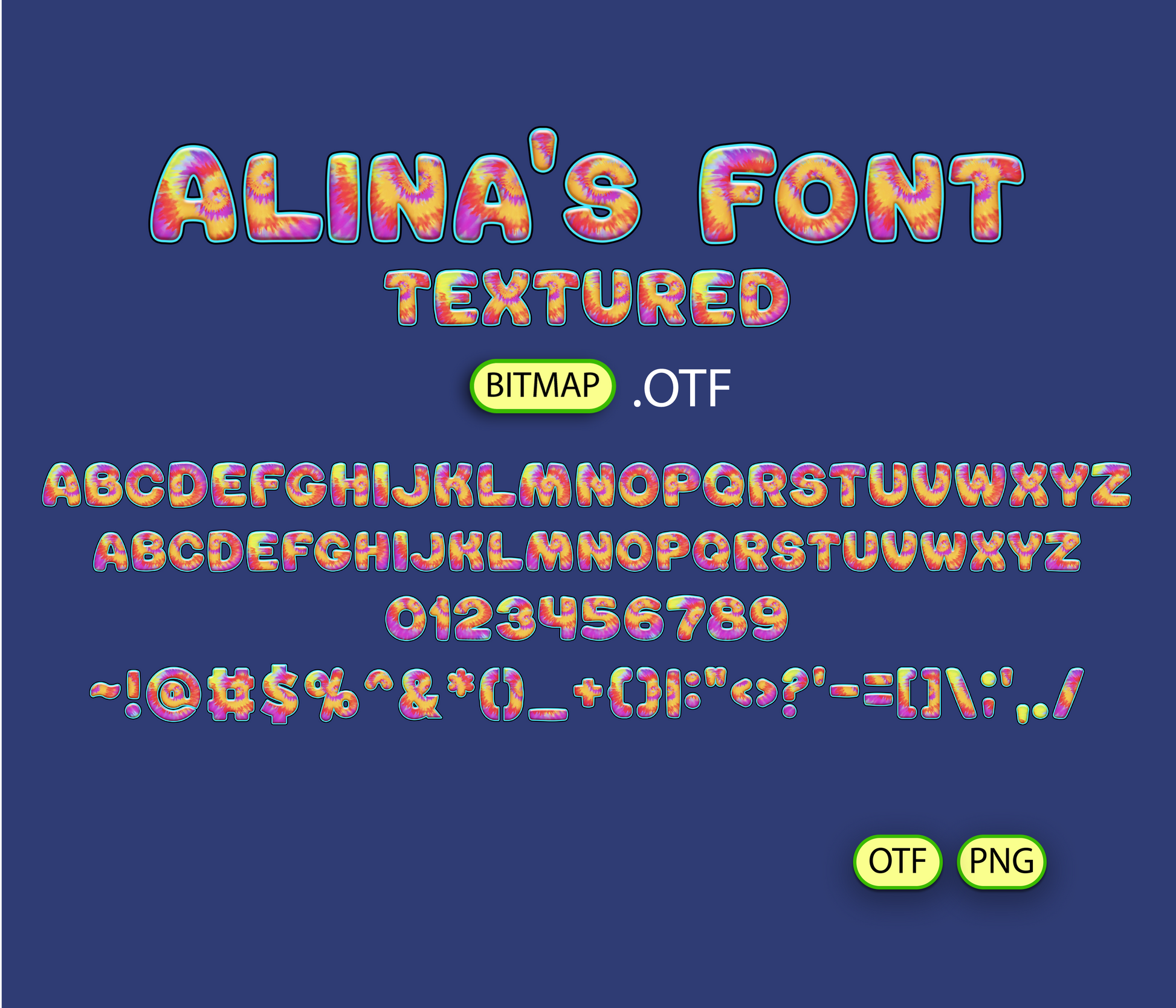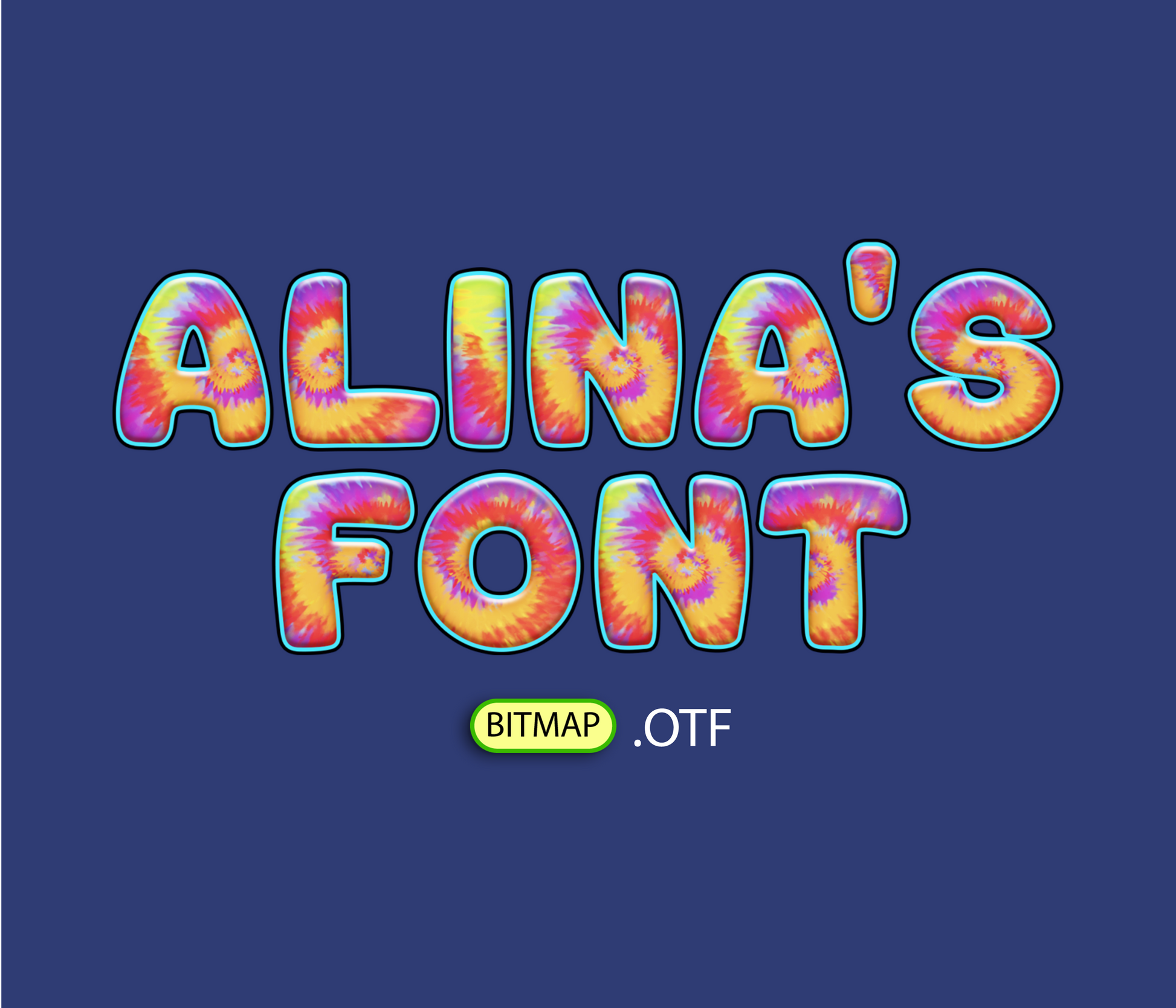
FREE Tie Dye Rainbow Pattern Font
Tie Dye Rainbow Typeface Swirled
Step into the vibrant world of psychedelic expression with our Tie Dye Rainbow Typeface, capturing the essence of free-spirited creativity and colorful counterculture. Perfect for festival organizers, retro brands, music promoters, and creative professionals, this font brings the groovy, peaceful spirit of the 1960s revival to your projects. Create eye-catching signage, bohemian products, or digital content with the swirling, kaleidoscopic energy of summer festivals and peace movements.
Our Tie Dye Rainbow Typeface features flowing, spiral-inspired shapes and colorful characters reflecting the free-form yet harmonious aesthetic of hippie culture and artistic expression.